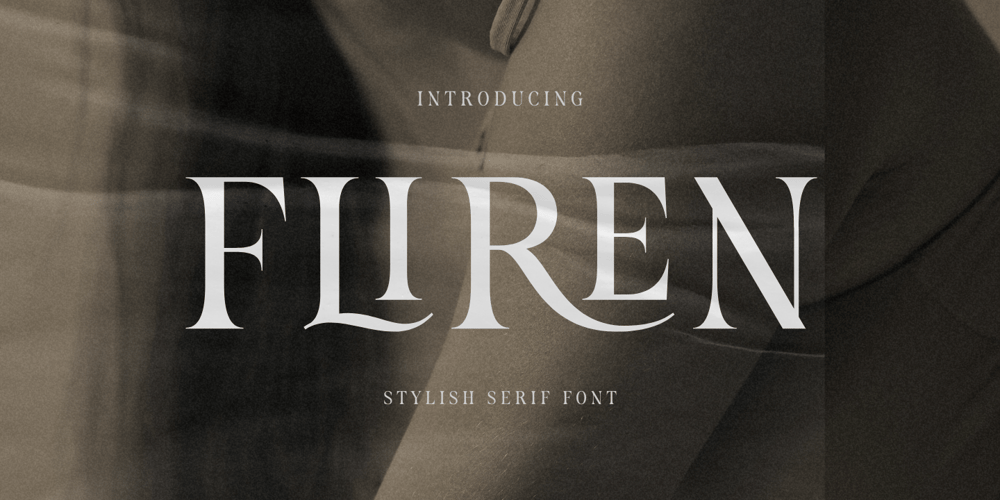
Fliren Font Family was designed by Muhamad Yusron Billah and published by Sronstudio. Fliren contains 1 styles and family package options. Introducing “Fliren,” a stylish serif font that blends classic elegance with modern sophistication. With its refined letterforms and graceful curves, “Fliren” is perfect for projects that require a touch of class and beauty, such as high-end branding, editorial design, wedding invitations, and luxury packaging. This font exudes timeless charm and versatility, ensuring your designs stand out with an air of stylish refinement. Let “Fliren” elevate your work with its exquisite and polished appearance.Included:- Ligatures- Numeral & Punctuation- PUA Encoded- Multilingual support- Simple Installation- Work both on Mac and WindowsThank you very much ๐